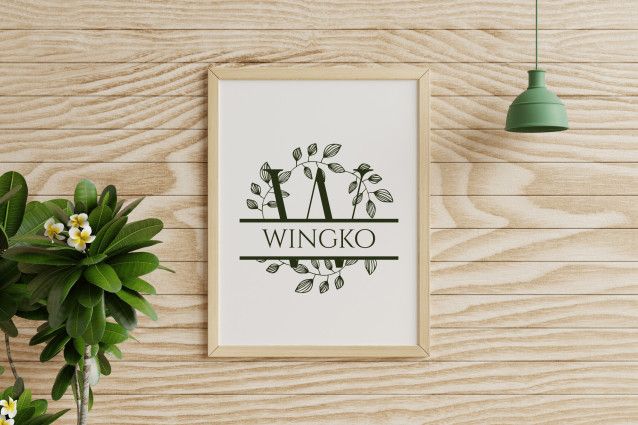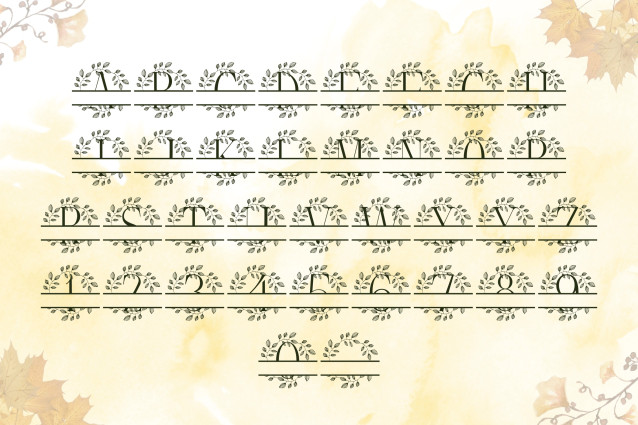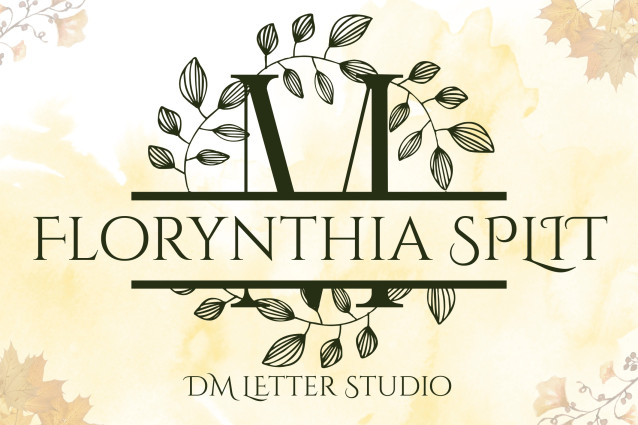
Florynthia Split Font
Florynthia Split is an ornate serif split monogram font featuring uppercase initials divided by a clean horizontal line for easy personalization. Each letter is elegantly adorned with flourishing, hand-drawn florals, making it ideal for wedding crafts, Cricut name projects, luxury branding, and romantic event design.